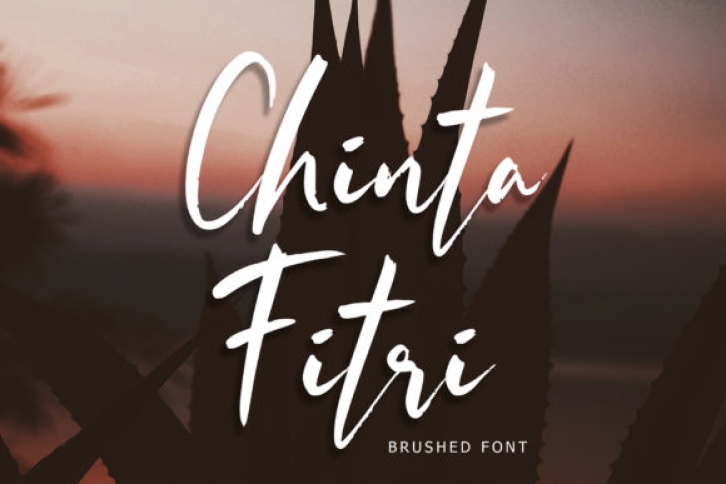
Chinta Fitri is a stylish and elegant handwritten font. Each letter has an unique touch and it has the ability to make each of your designs stand out. Have fun with this beautiful font and explore its endless variations.